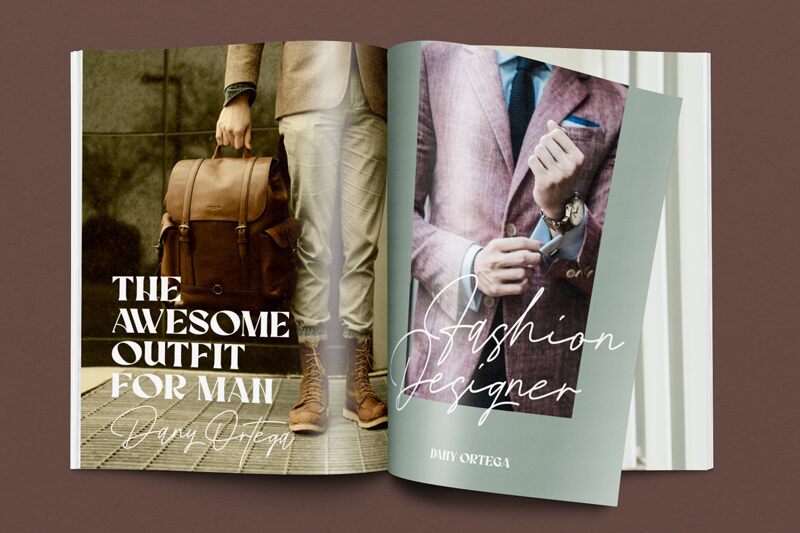
Better Signature
Introducing Better Signature, an exquisite handwritten font designed by Riyadh Rahman. This light and airy font is perfect for creating a personalized touch on wedding invitations, thank-you cards, and even social media graphics. The fluid strokes of Better Signature make it ideal for conveying a sense of elegance and sophistication in any project. Use it to add a human touch to your branding materials, or to create beautiful logos that stand out from the crowd. Whether you're designing for print or digital media, Better Signature is the perfect choice for adding a personal touch to your projects.